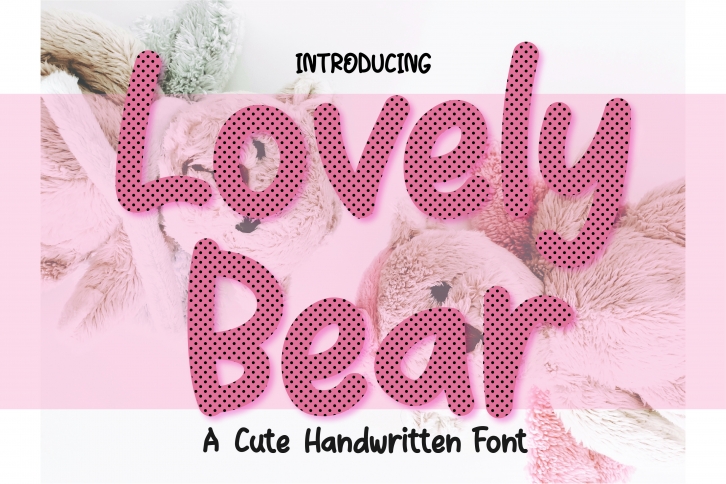
Lovely Bear is a cool, playful and friendly handwritten font. It can easily be matched to an incredibly large set of projects, so add it to your creative ideas and notice how it makes them stand out!